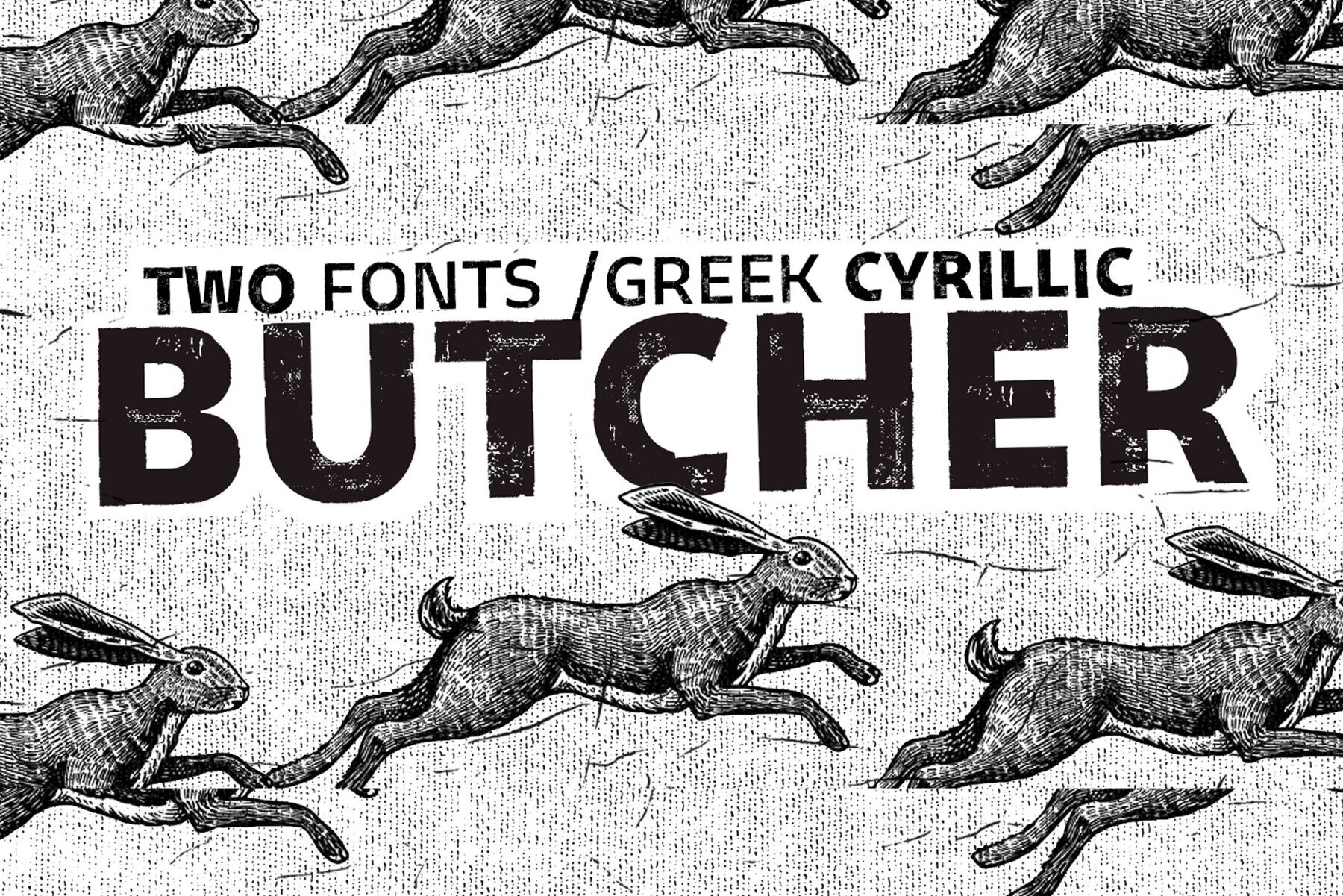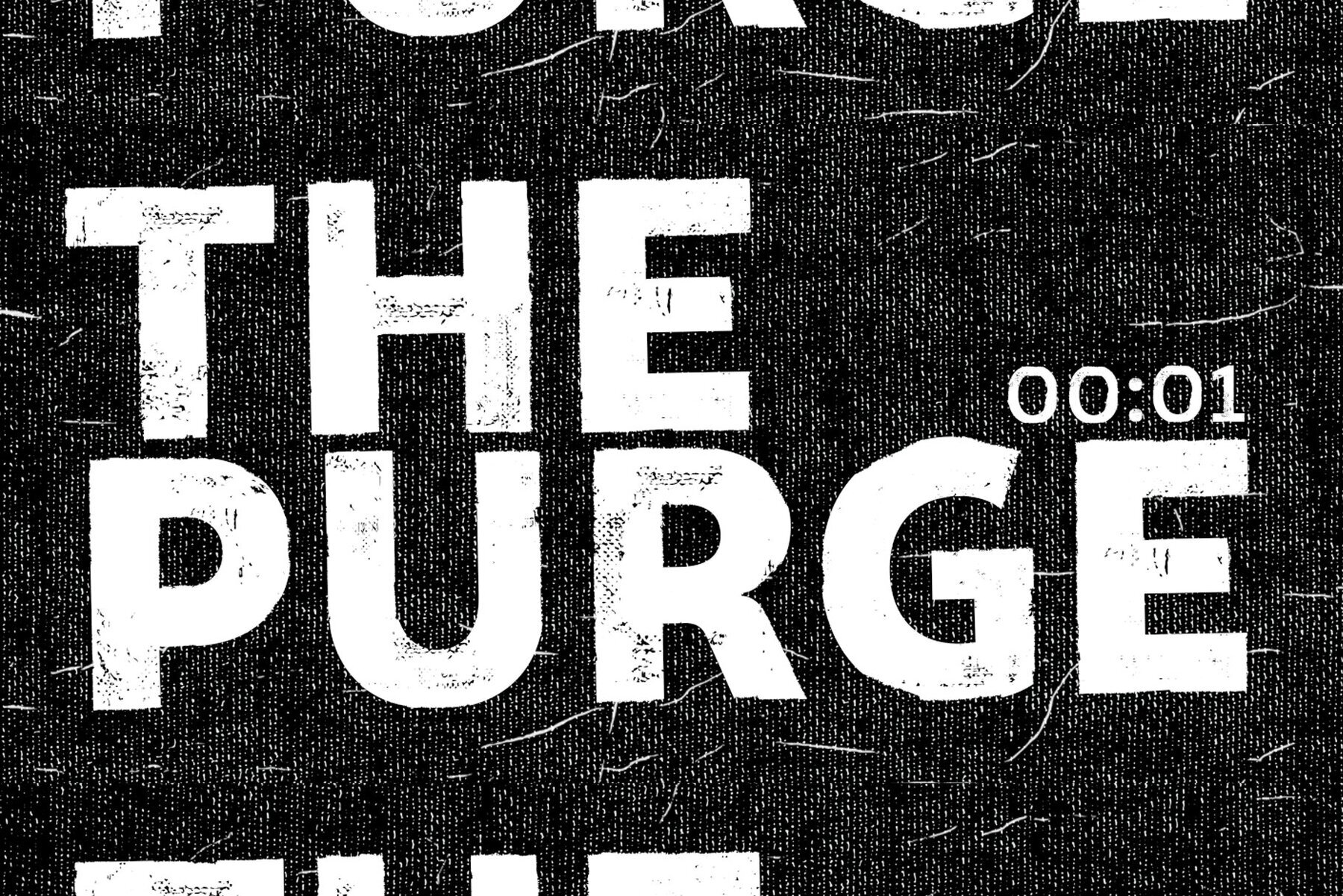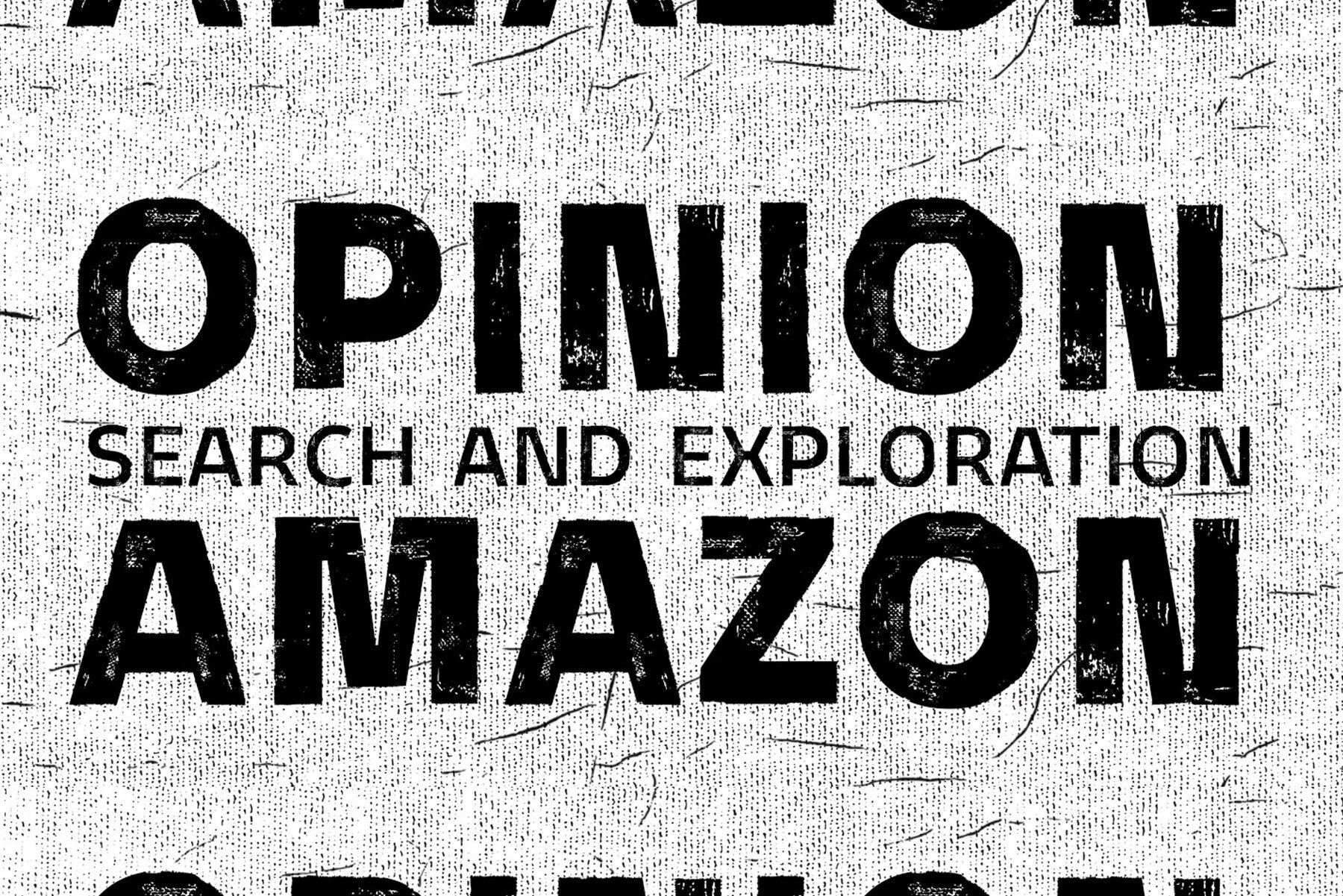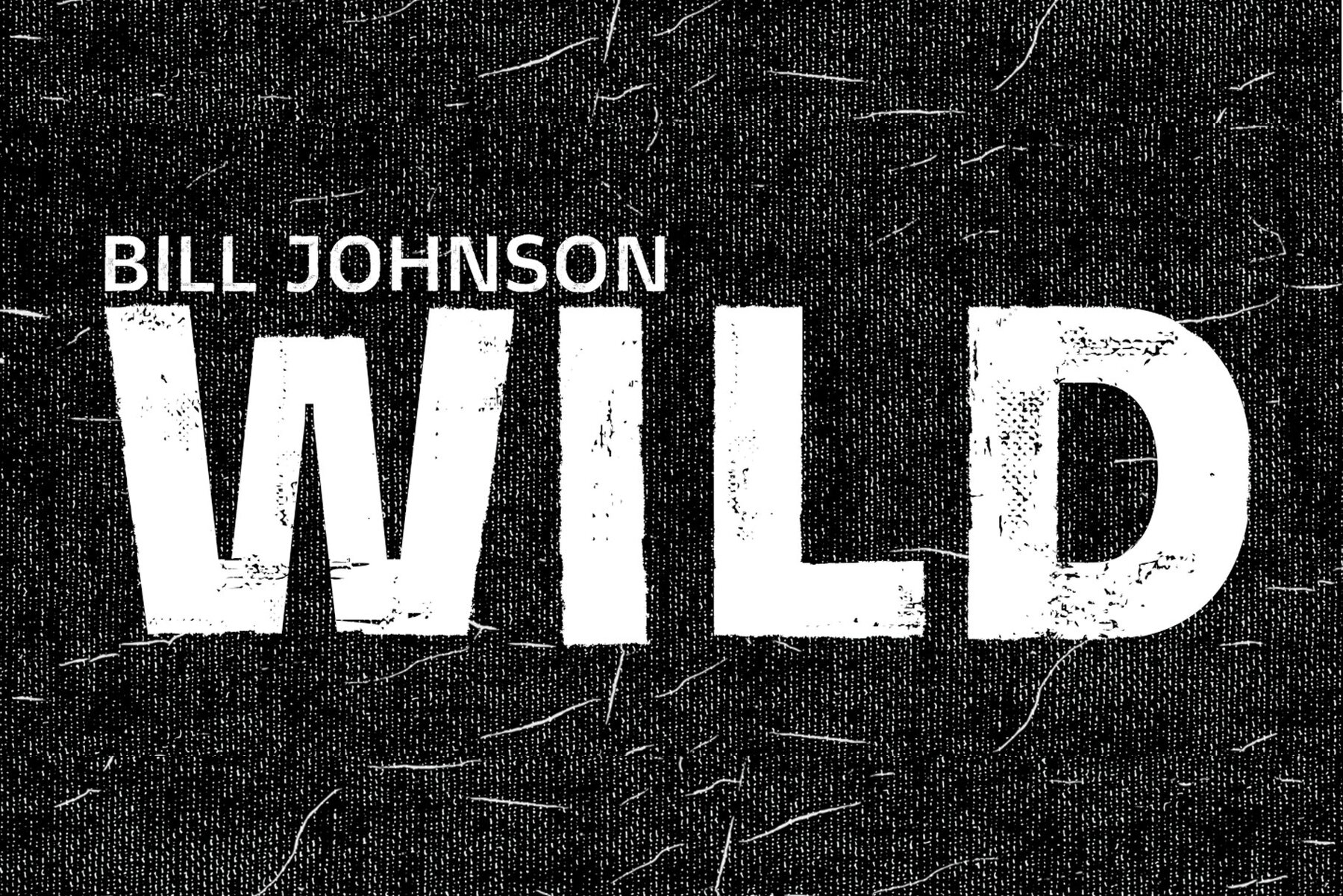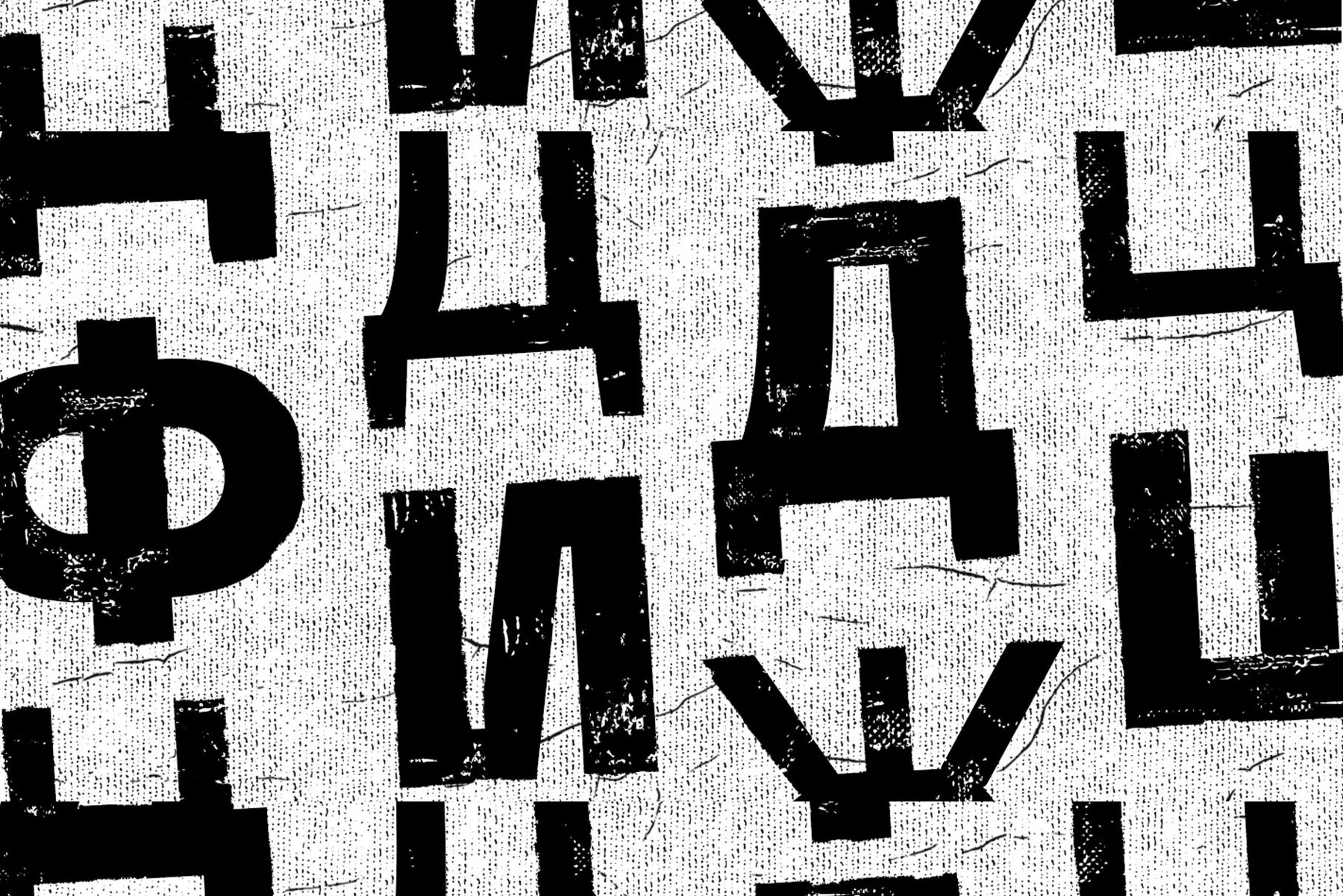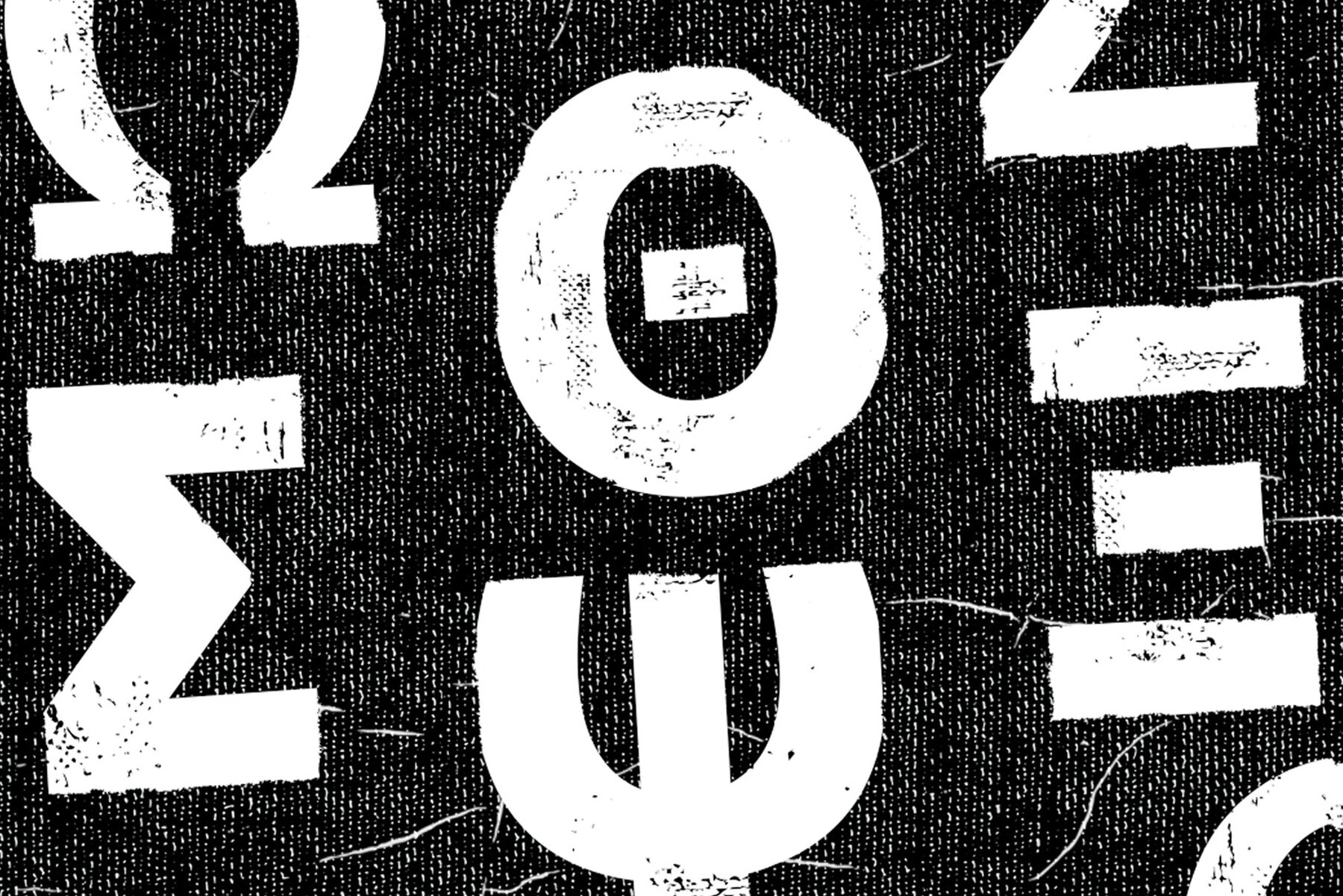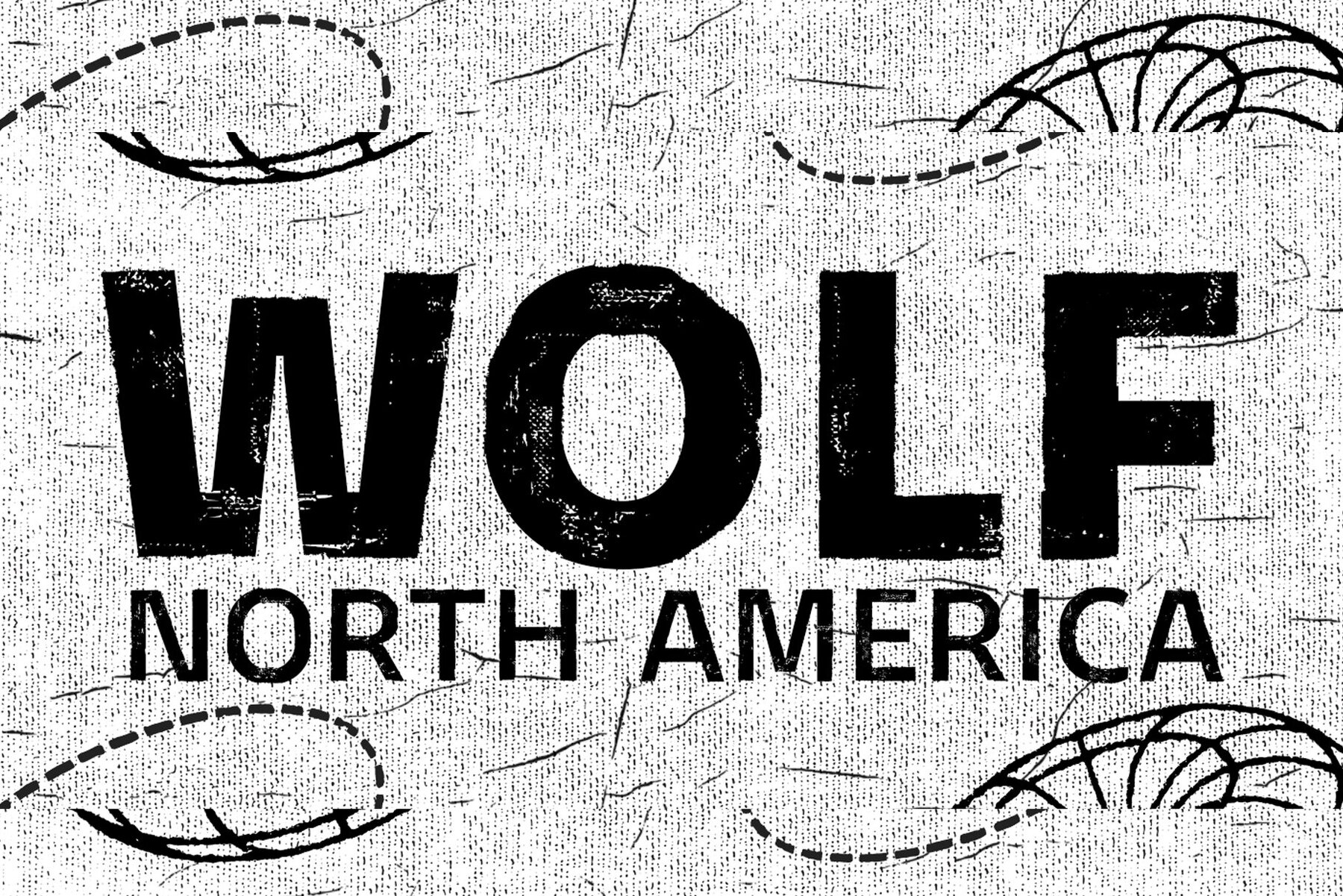
Butcher Font
The Butcher font by RodrigoTypo offers a unique blend of robust character and versatile design. With both medium and black styles, this sans-serif typeface adapts seamlessly to various design needs, allowing you to mix weights for impactful visual contrast.Butcher: A Bold Sans-Serif with Dual Weight Options